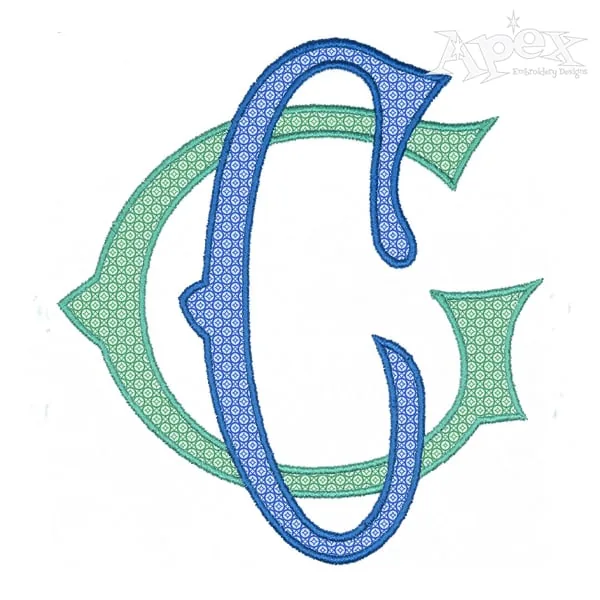
Raven Interlocking Applique Monogram Embroidery Font
Conceived with an eye toward grand, architectural drama, the Raven Interlocking Applique Monogram marries the romantic flourish of historic ironwork with the tactile luxury of modern mixed-media needlework. When personalizing substantial heirloom textiles, standard satin monograms can often lose their visual weight against heavy weaves; Raven solves this with sweeping, sculptural ribbons of fabric framed by a mirror-smooth satin border. The interwoven letterforms twist and interlock with effortless theatricality, creating a bespoke monogramming presence that turns linen, velvet, and canvas into works of tailored artistry.
Raven Interlocking Applique Monogram Craft & Letterform Details
Digitizing a large-scale applique font requires a meticulous balance of structural tension, clean edge coverage, and visual flow. Each letter in the Raven alphabet is engineered with precision placement and tack-down stitch sequences that tame fabric grain and eliminate creeping, ensuring your applique fabric lays completely flat before the border begins. The satin borders are calibrated with generous stitch density and intentional overlap layering, allowing interlocking letters to weave visually over and under one another without bulky thread accumulation. Fluid curve transitions, tapered serif tips, and perfectly beveled interior corners keep the outline crisp, resilient, and utterly luxurious under machine needles.